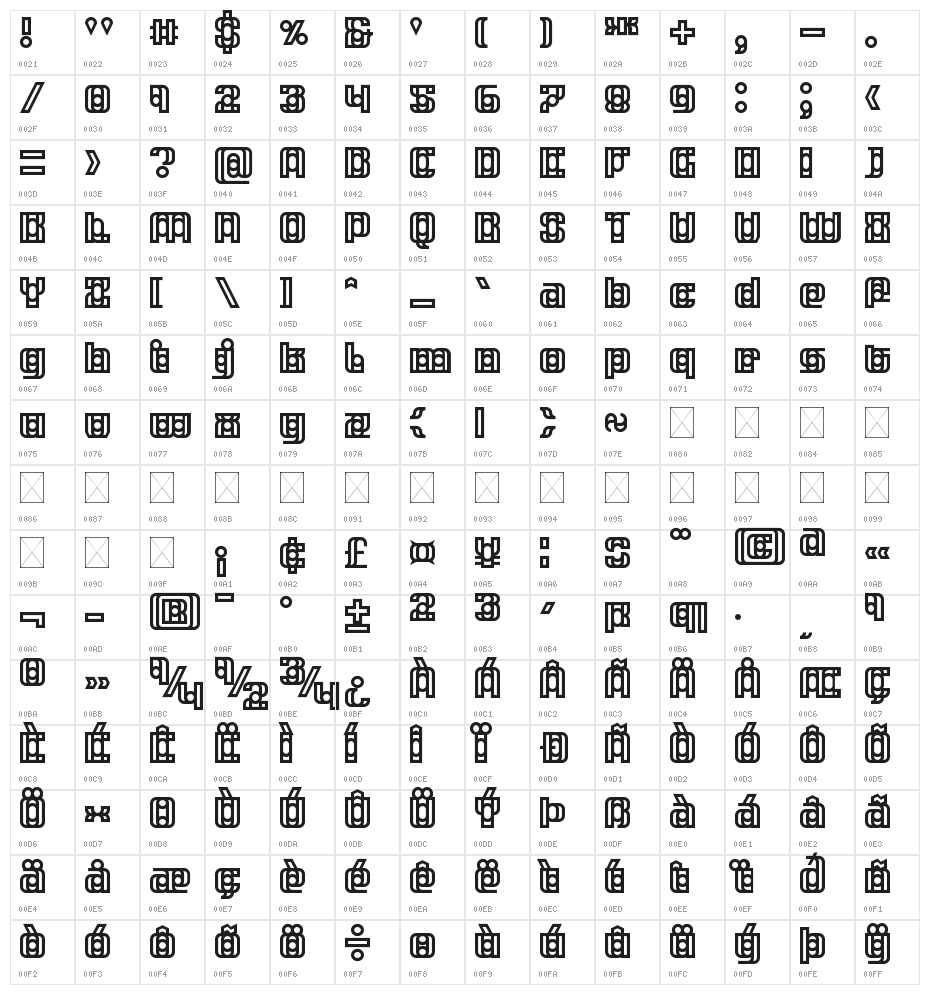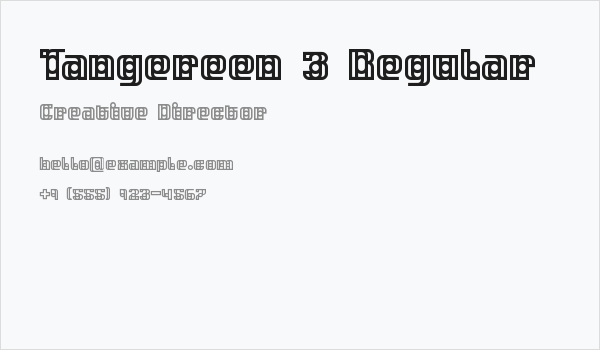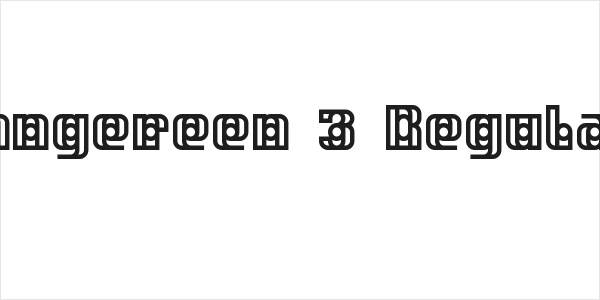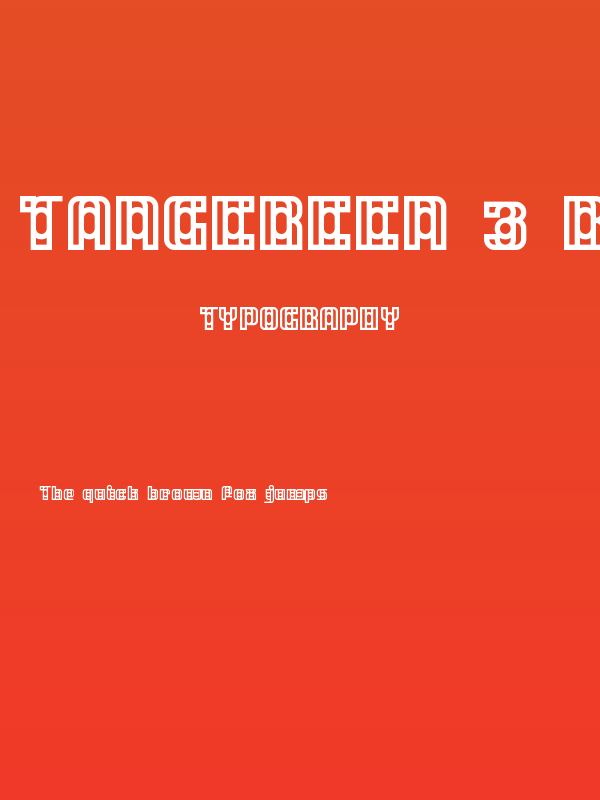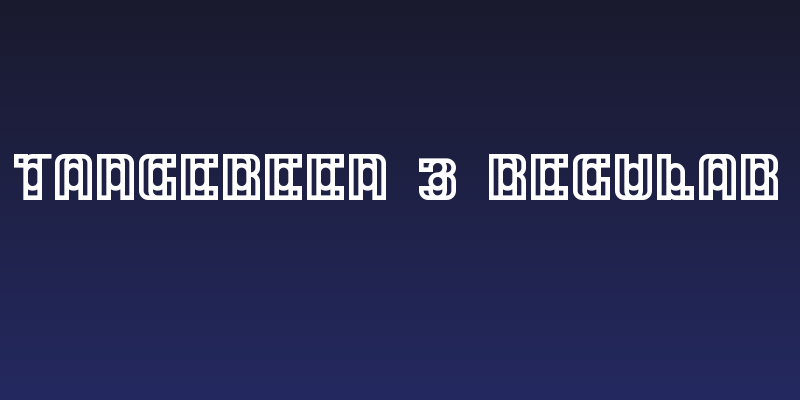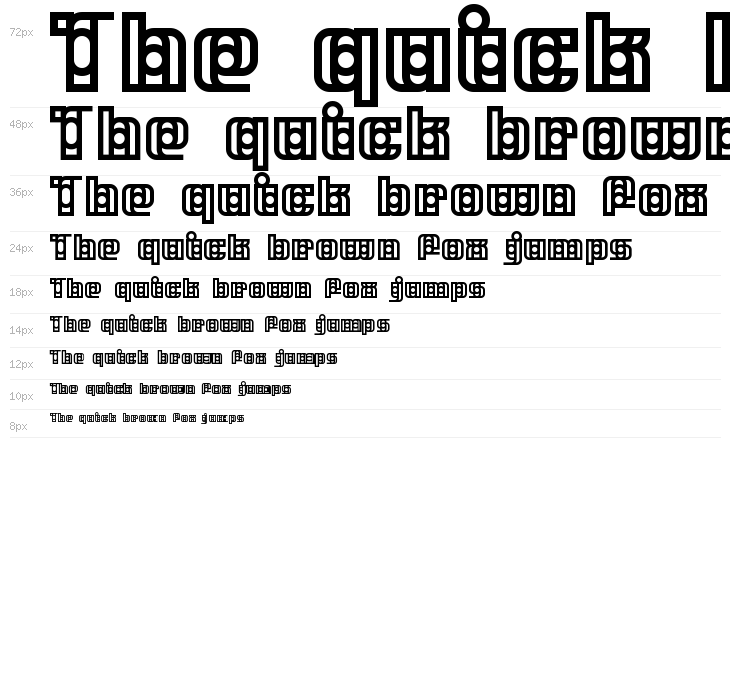
Tangereen 3 Regular Font
Tangereen 3 Regular Description
This font features a bold and geometric design with a distinct retro-futuristic aesthetic. The characters are constructed with thick, uniform strokes and a consistent width, giving them a monospaced appearance. The letters have a unique, blocky style with rounded corners, creating a sense of playfulness and modernity. The uppercase and lowercase letters maintain a cohesive look, while the numerals and special characters are designed to match the overall style. The font's boldness and geometric shapes make it highly legible and visually striking, suitable for various creative applications.